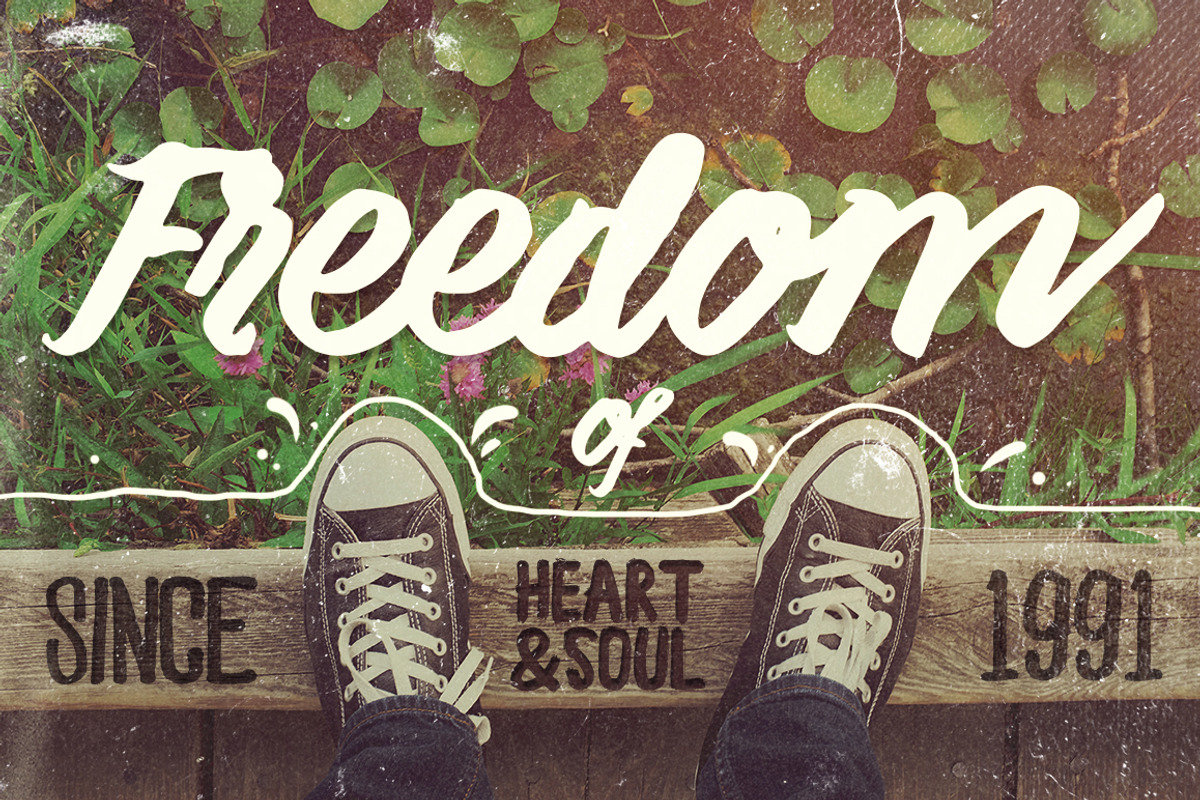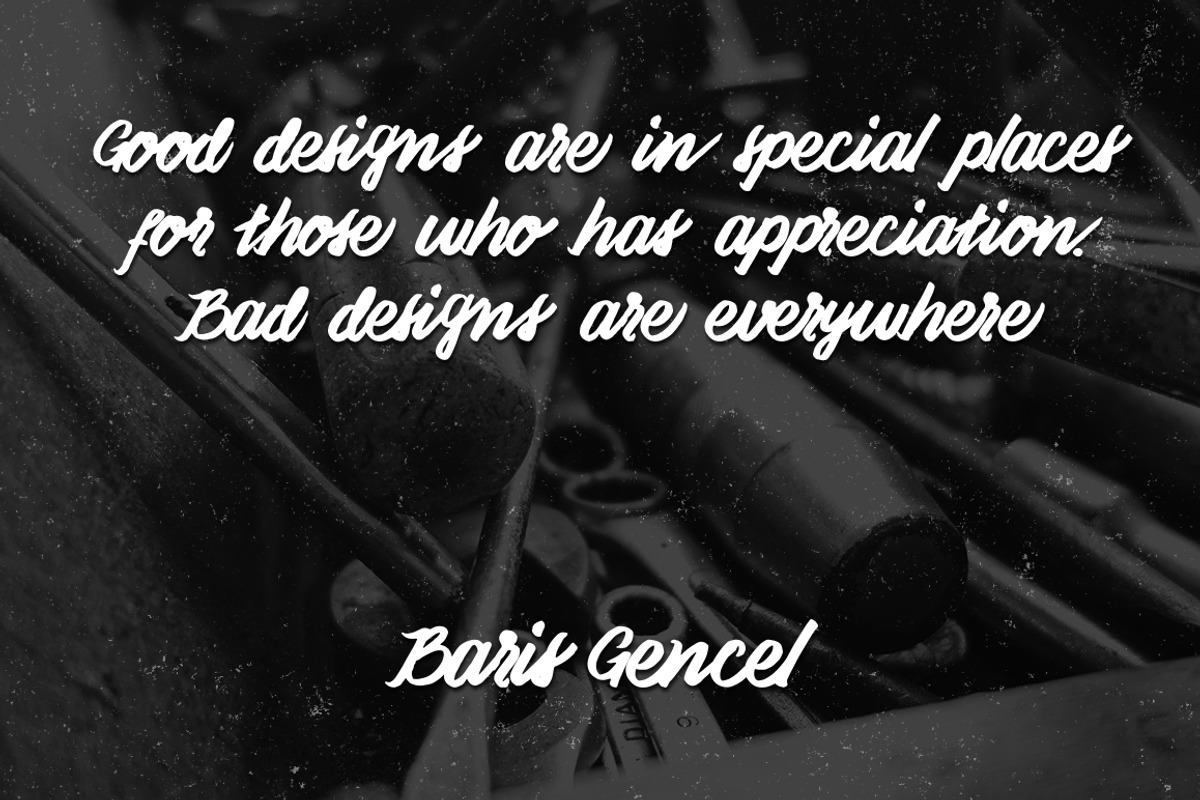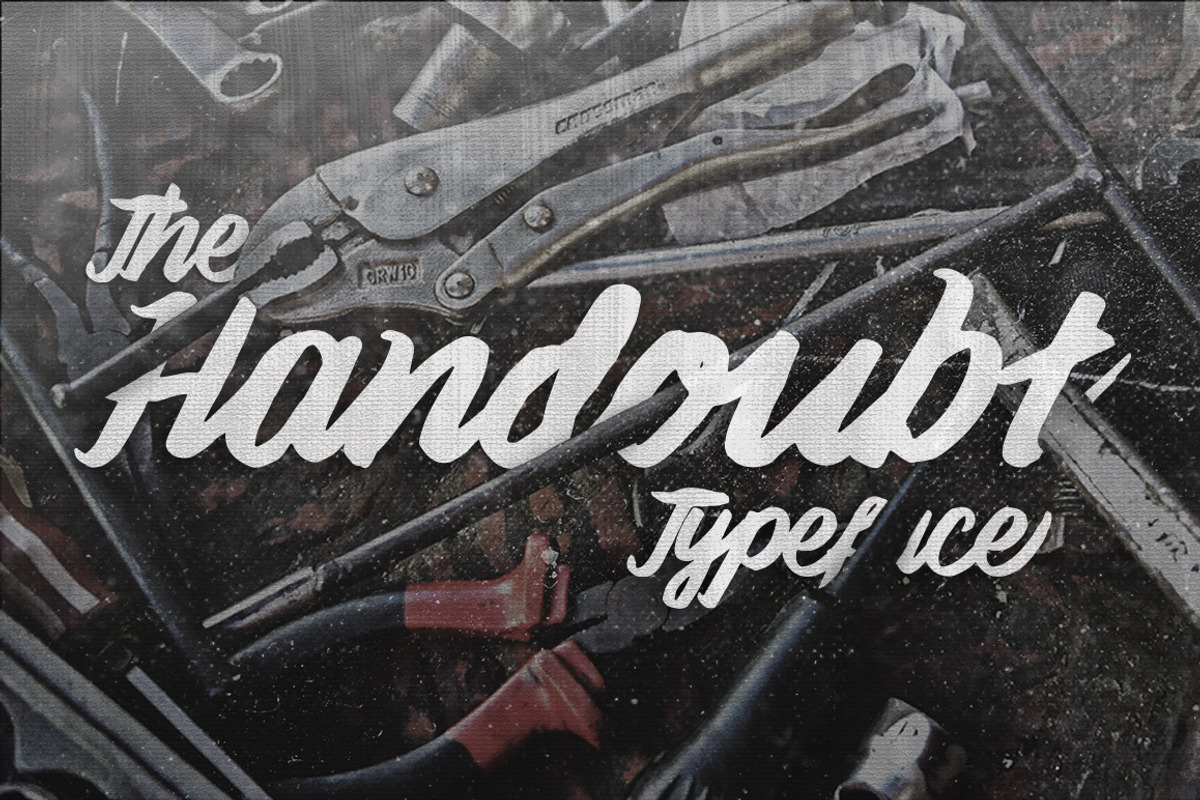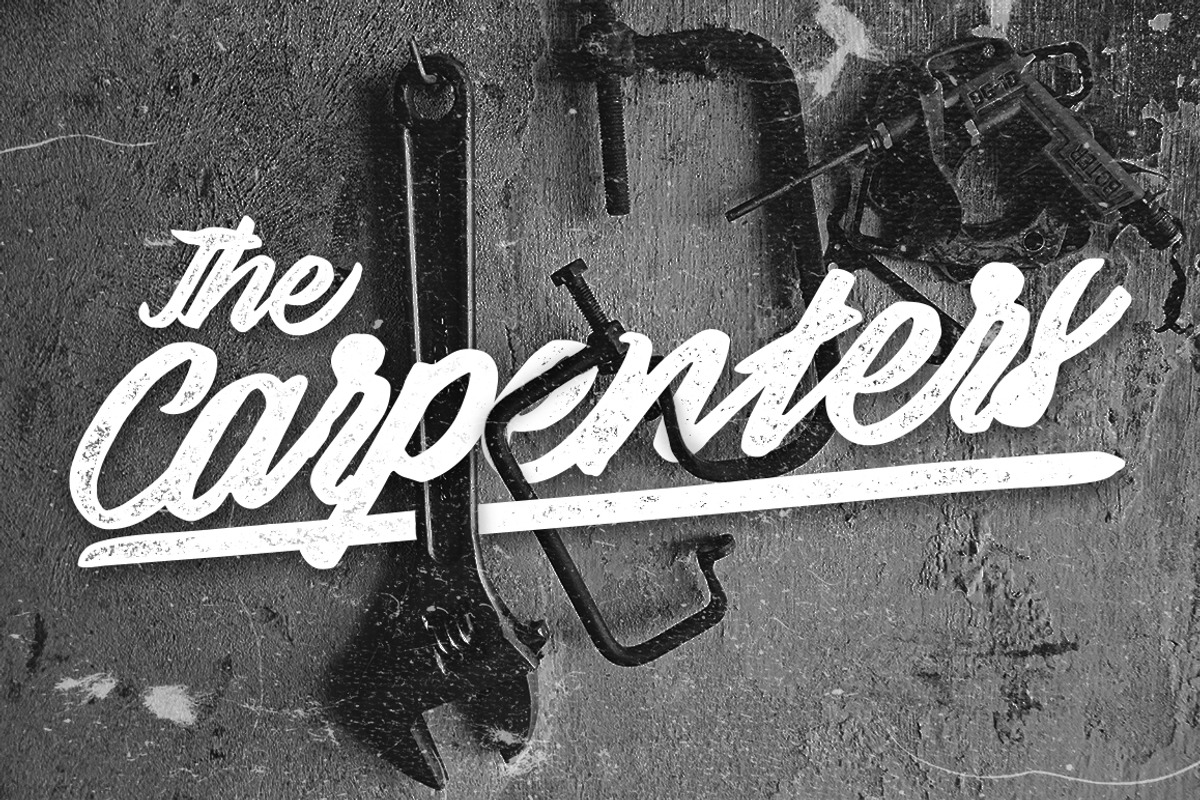
Handoubt Typeface
Handoubt Typeface by Ian Irwanwismoyo is a font selected for branding, posters, packaging, typography.
- Handoubt Typeface is a doubtful pen brush script writings with handy feels packed with all of those imperfections and (a lil bit) jaggy line
Why Handoubt Typeface is worth a look
Handoubt Typeface by Ian Irwanwismoyo fits naturally into Branding, posters, packaging, typography.